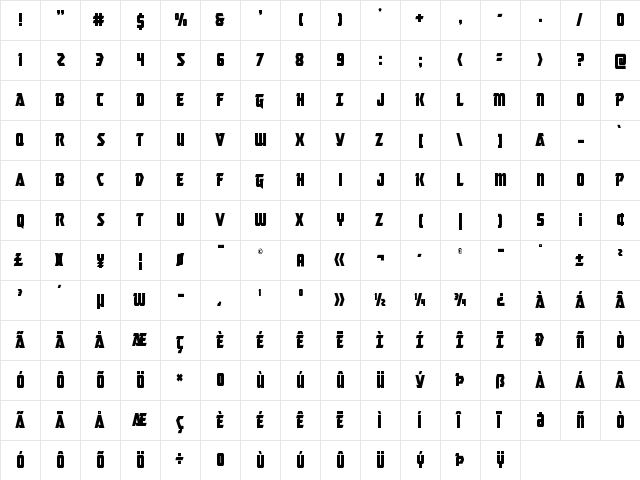
Master Breaker Condensed Condensed
Design Context for Master Breaker Condensed Typeface
Master Breaker Condensed is a composed and adaptable typeface that performs quietly and consistently across a wide range of design contexts. The condensed width makes it efficient for tight spaces without sacrificing legibility.
Pro Tip: Use Master Breaker Condensed in both headline and body roles to test its range before committing to a single application.